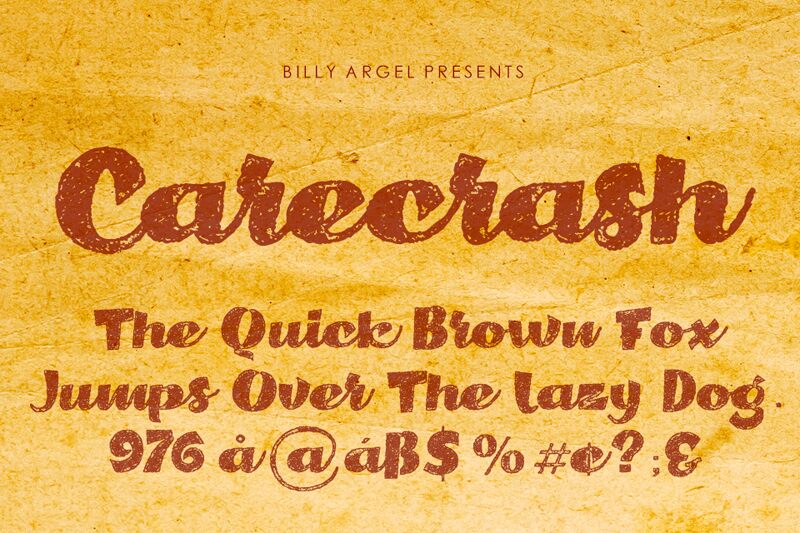
Carecrash is an extra-bold display font designed by Billy Argel, perfect for projects that require a bold and edgy look. Its eroded script style gives it a unique, weathered appearance that will make your designs stand out from the crowd. The semi-expanded width of this typeface allows for more legibility at larger sizes, making it ideal for headlines and titles. Use Carecrash on posters, album covers, or any project that needs a touch of rebellious flair. This versatile font is sure to leave an impression on your audience and give your designs the extra kick they need to truly shine.